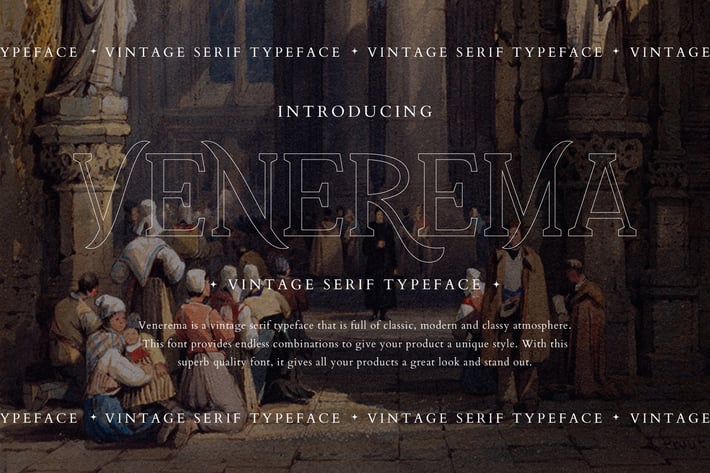
Venerema Vintage Business Font
Venerema is a vintage serif typeface full of classic, modern and classy vibes. This font provides endless combinations to give your product a unique style. This excellent quality font gives all your products a nice and stand-out look.
Venerema is perfect for branding projects, logo, wedding designs, social media posts, advertisements, product packaging, product designs, label, photography, watermark, invitation, stationery and any projects that need handwriting taste.
Ton of glyphs
Ligature & Alternate